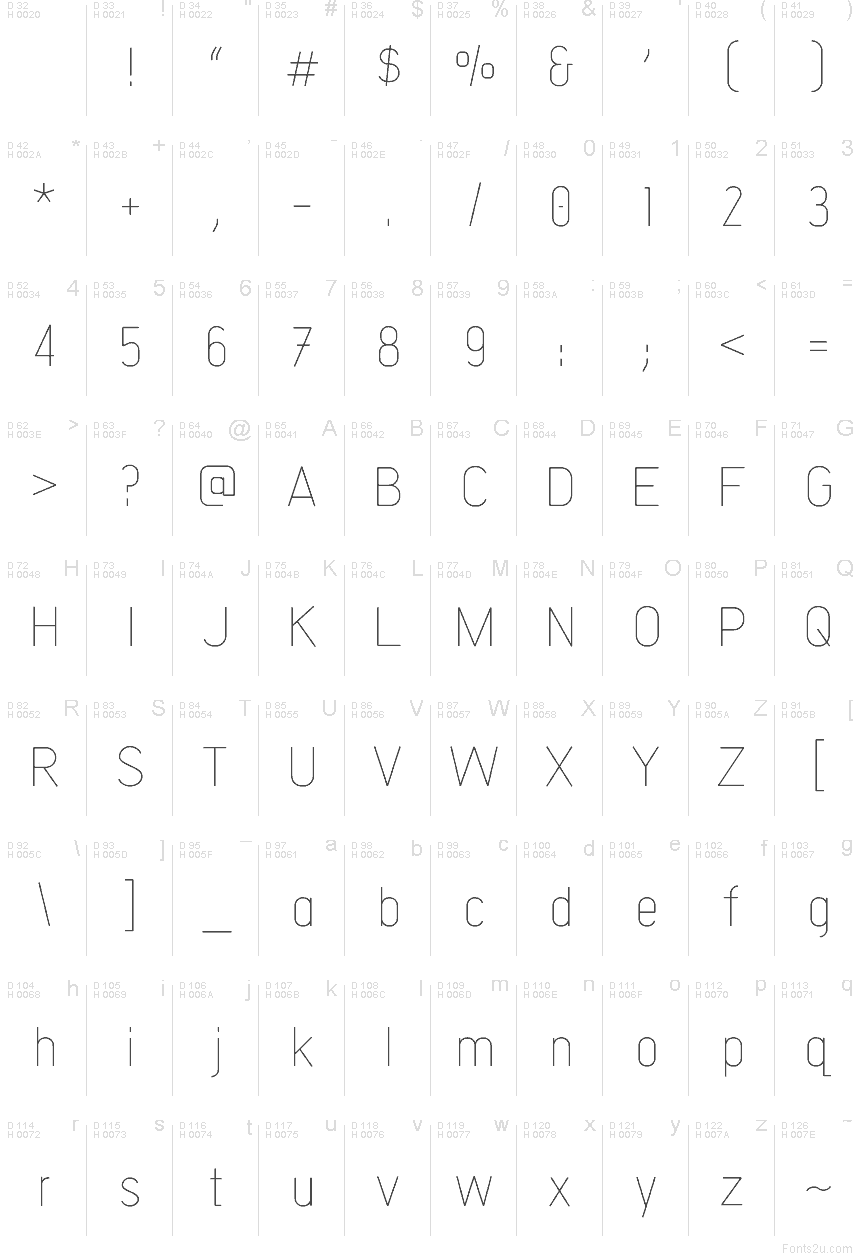
Maneuver Fine
Maneuver Fine font by Mark L of Factus Creative is a free ultra-light sans serif typeface that traces letters like fine wire on white space. Part of the Maneuver family, its long, straight strokes and airy curves feel precise yet relaxed, like technical drawing done with a soft pencil. The generous spacing keeps even dense words breathable, giving headlines and wordmarks a crisp, architectural elegance without feeling cold.
Using Maneuver Fine, this free font shines on fashion branding, editorial covers, minimalist posters, refined packaging, portfolio sites, and sleek UI headers. Its slim lines invite large sizes, where the subtle geometry and rhythm really show. For longer copy, pair Maneuver Fine with a sturdy grotesque or humanist sans to balance its delicacy while keeping a cohesive, modern look.